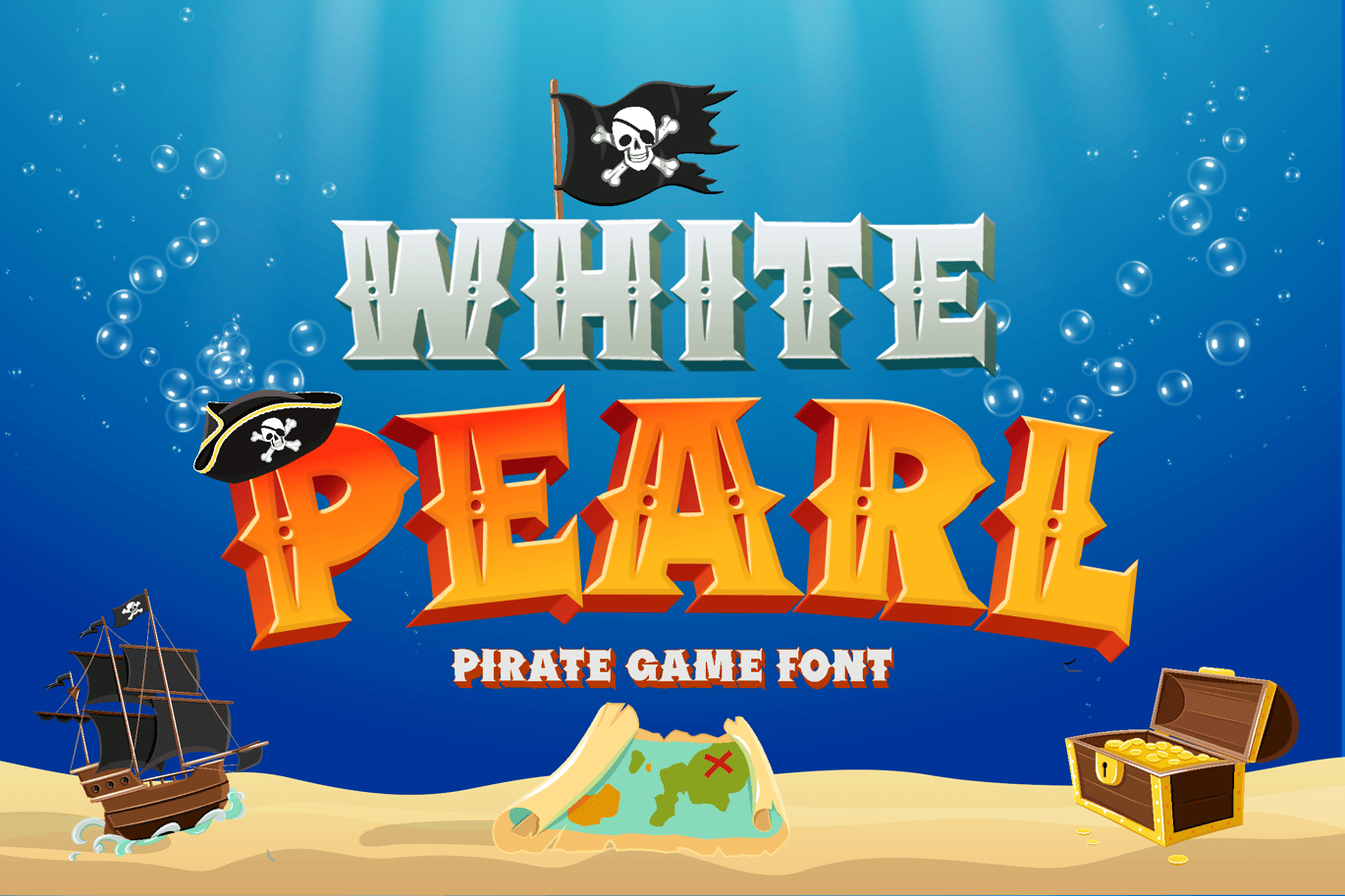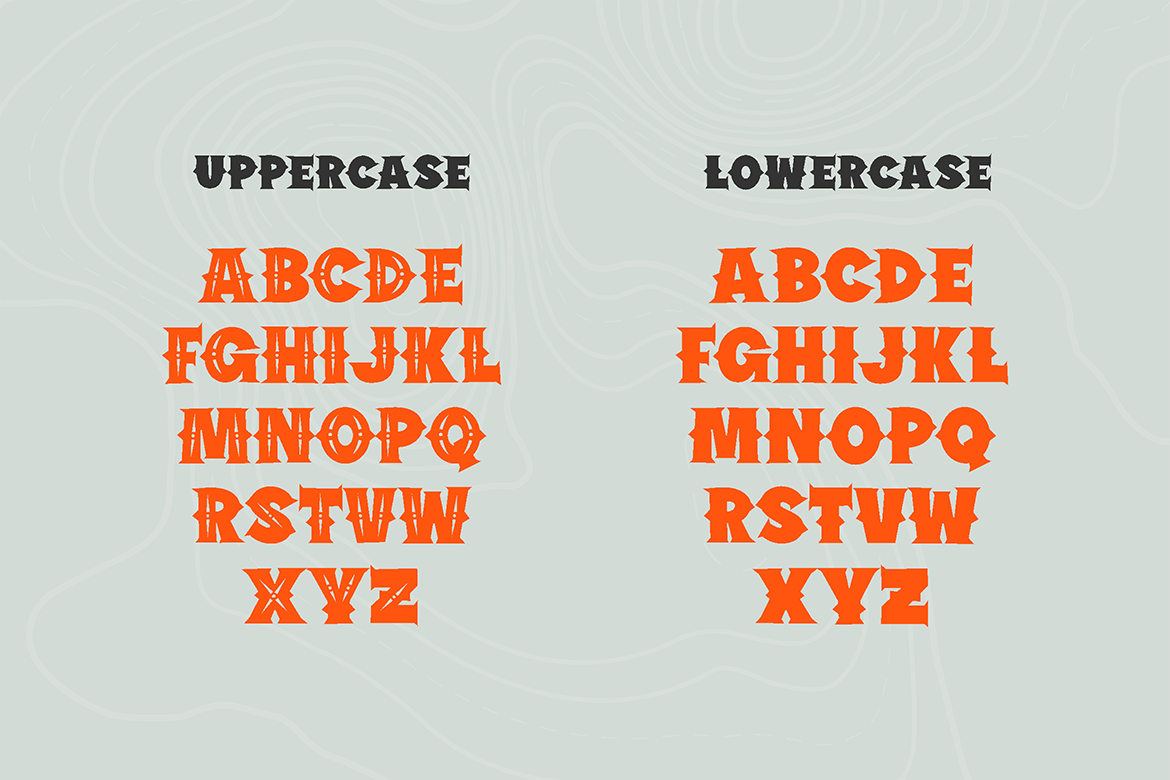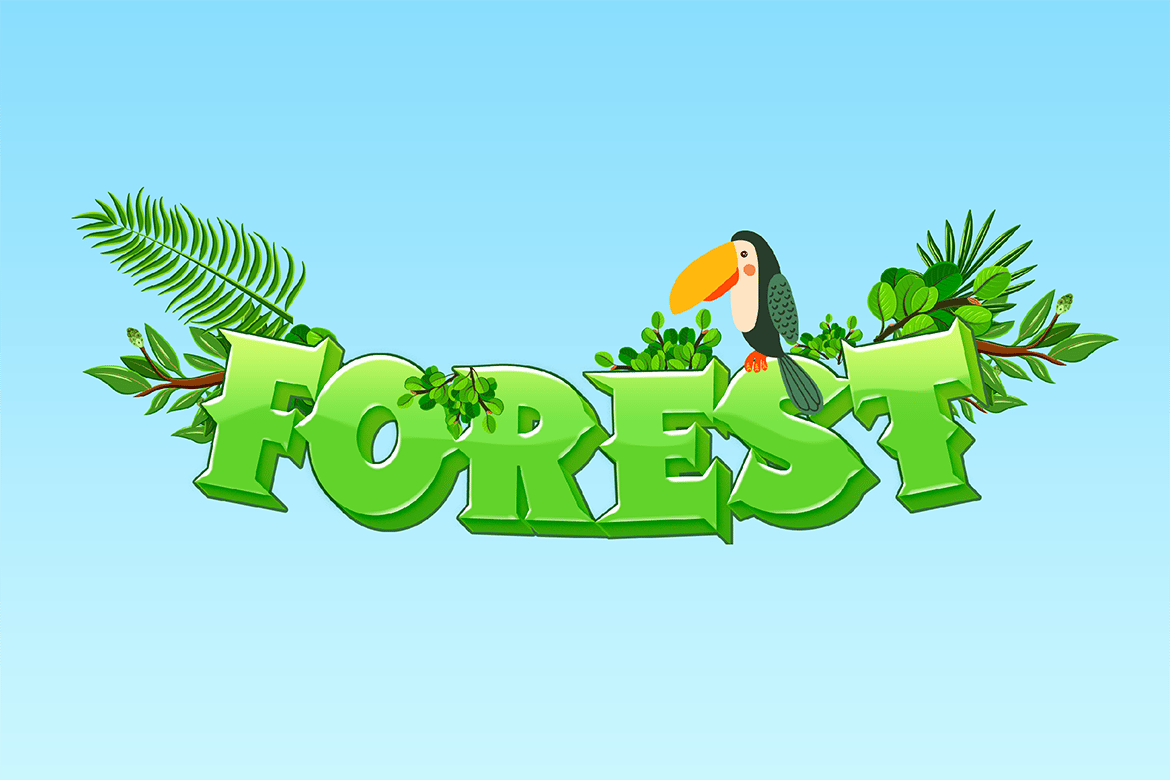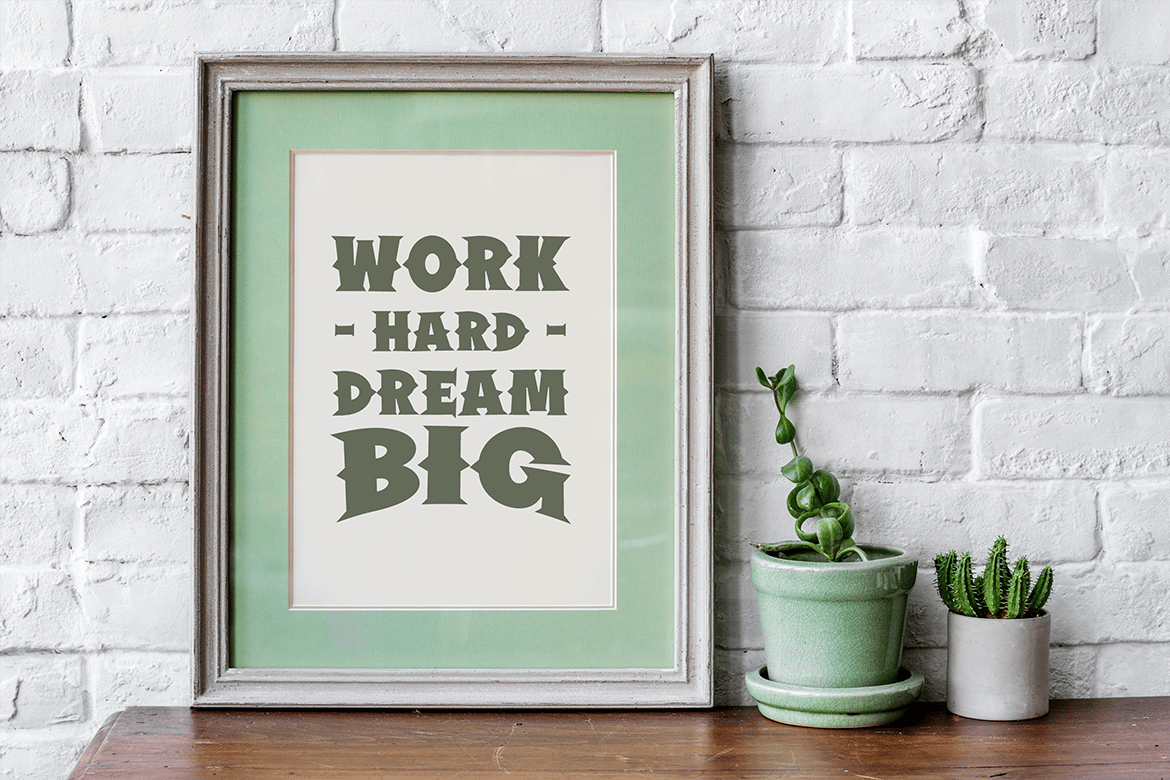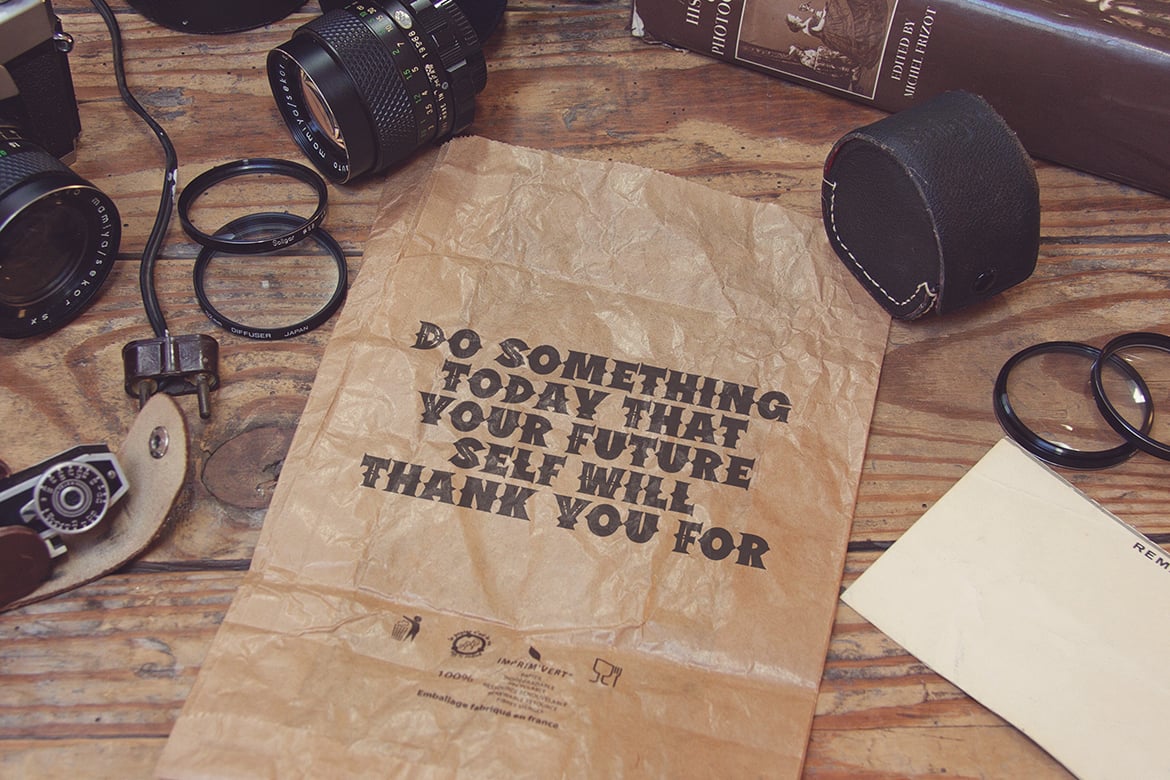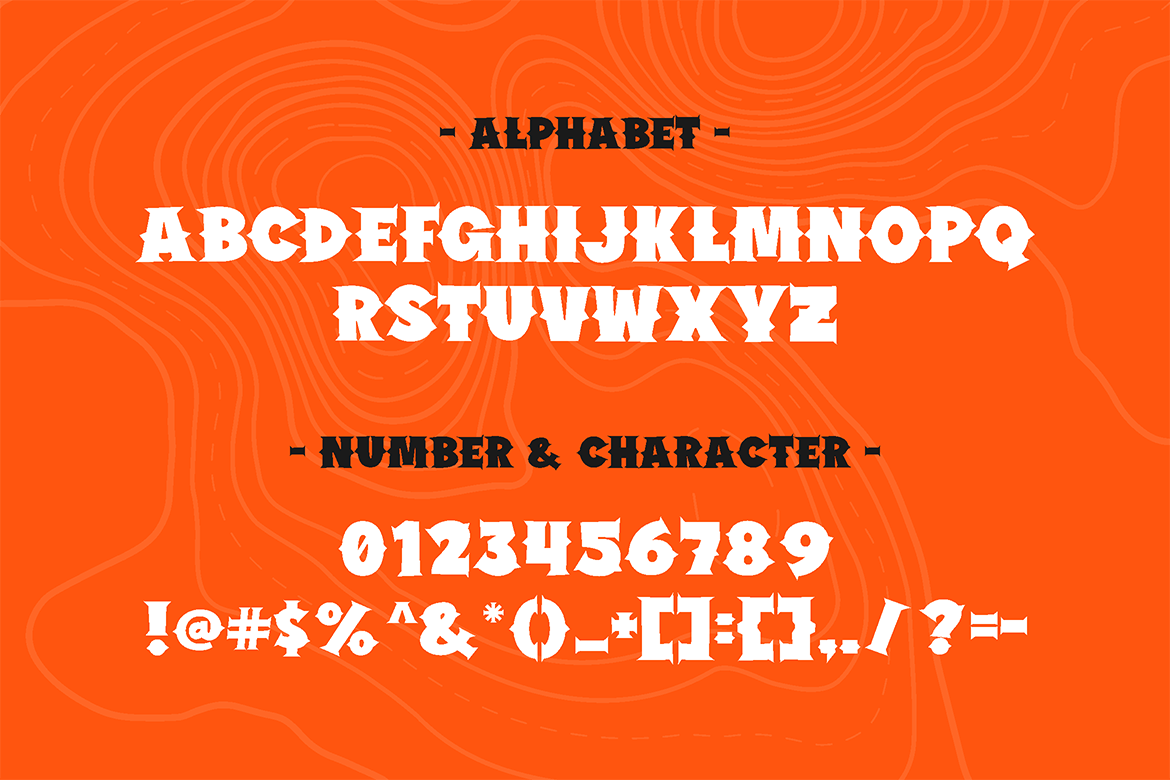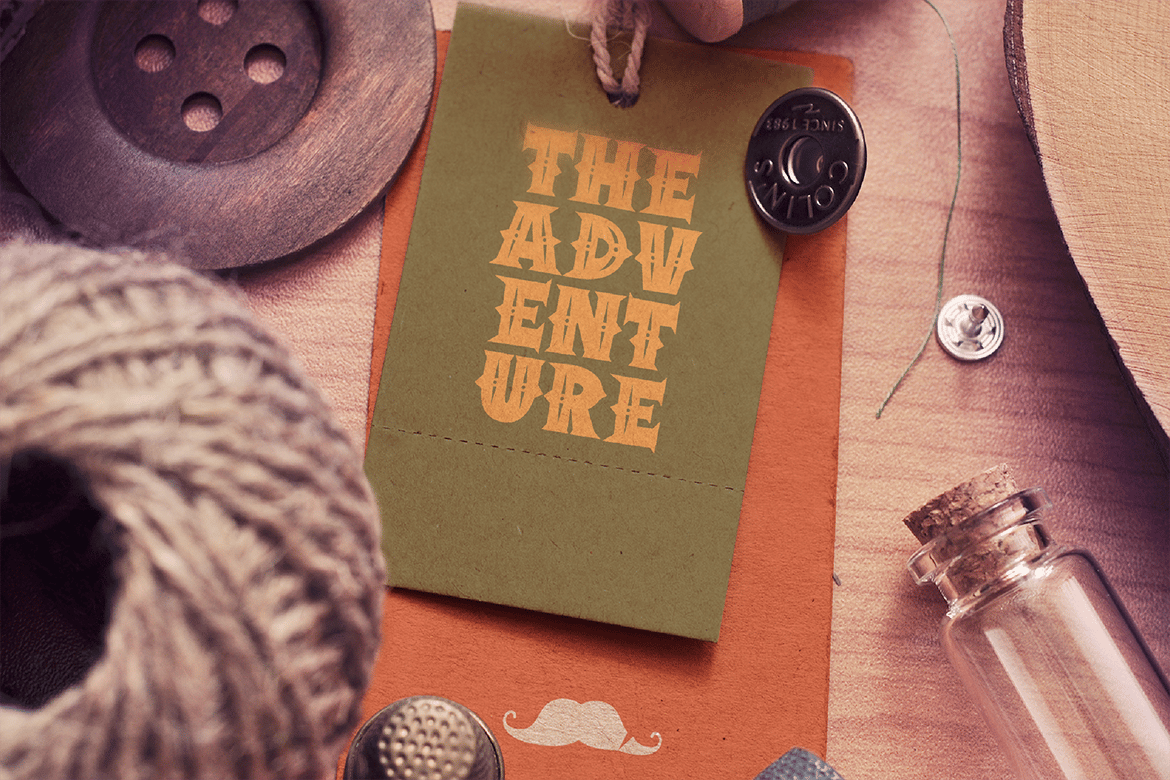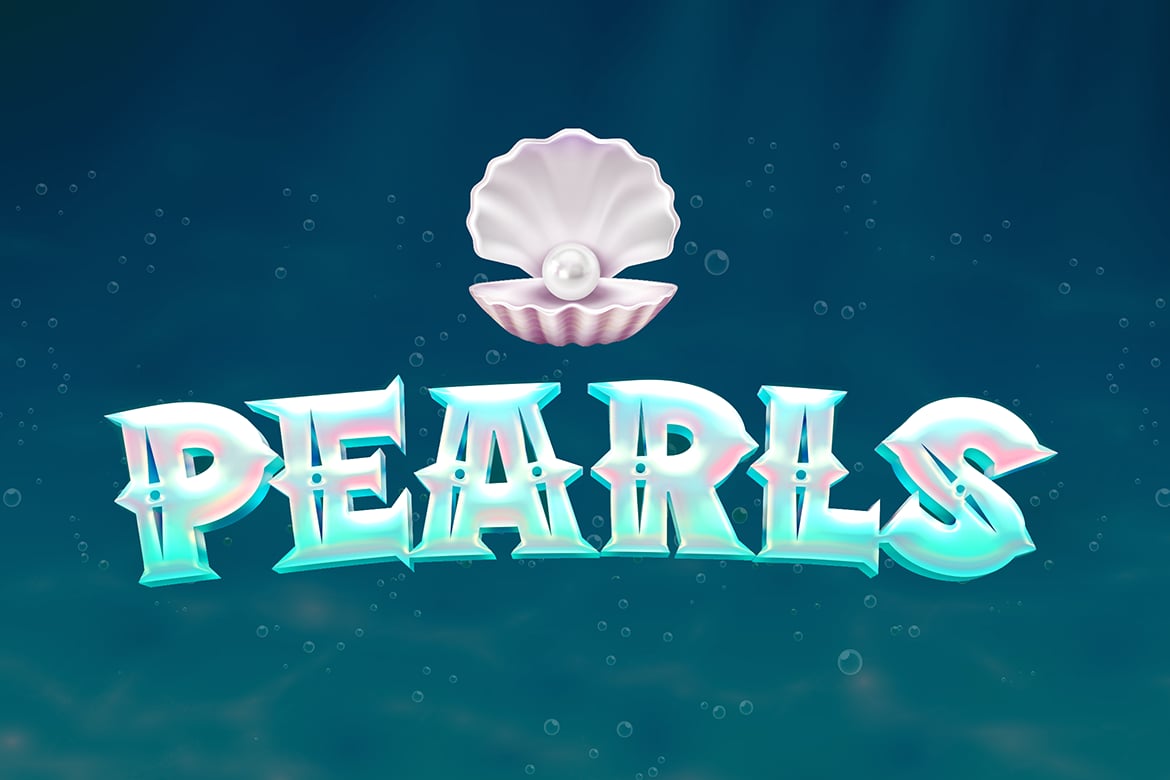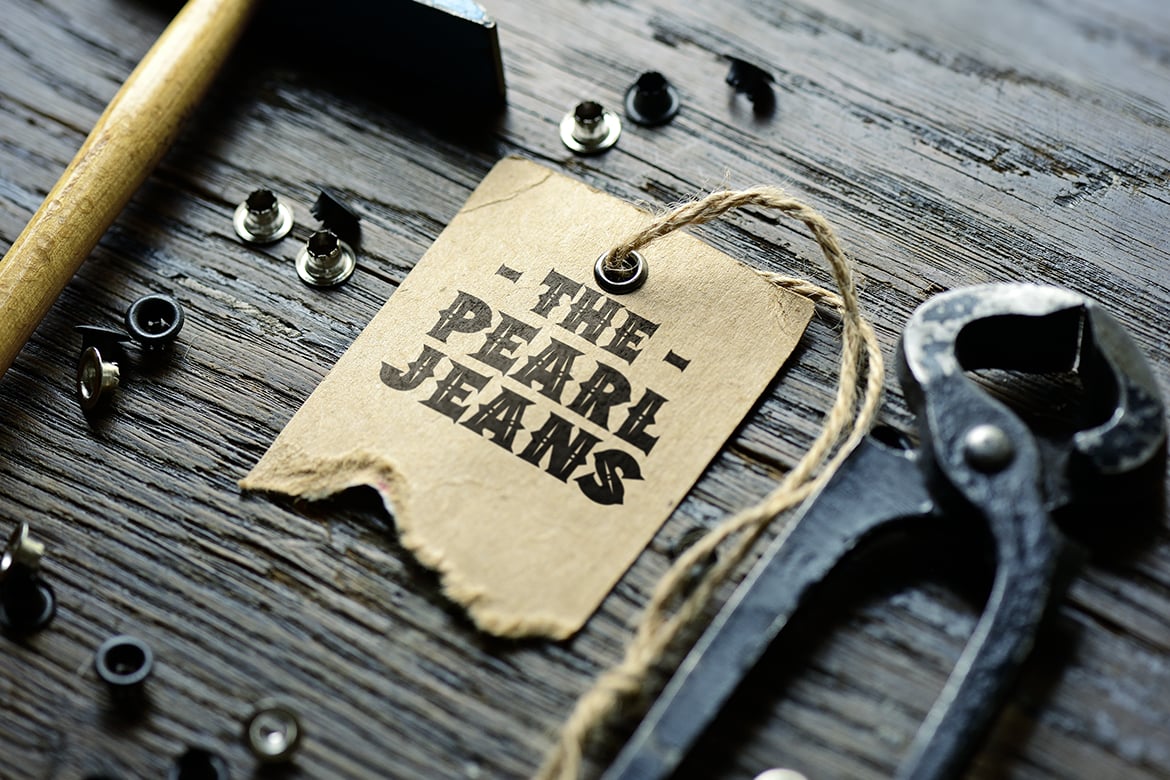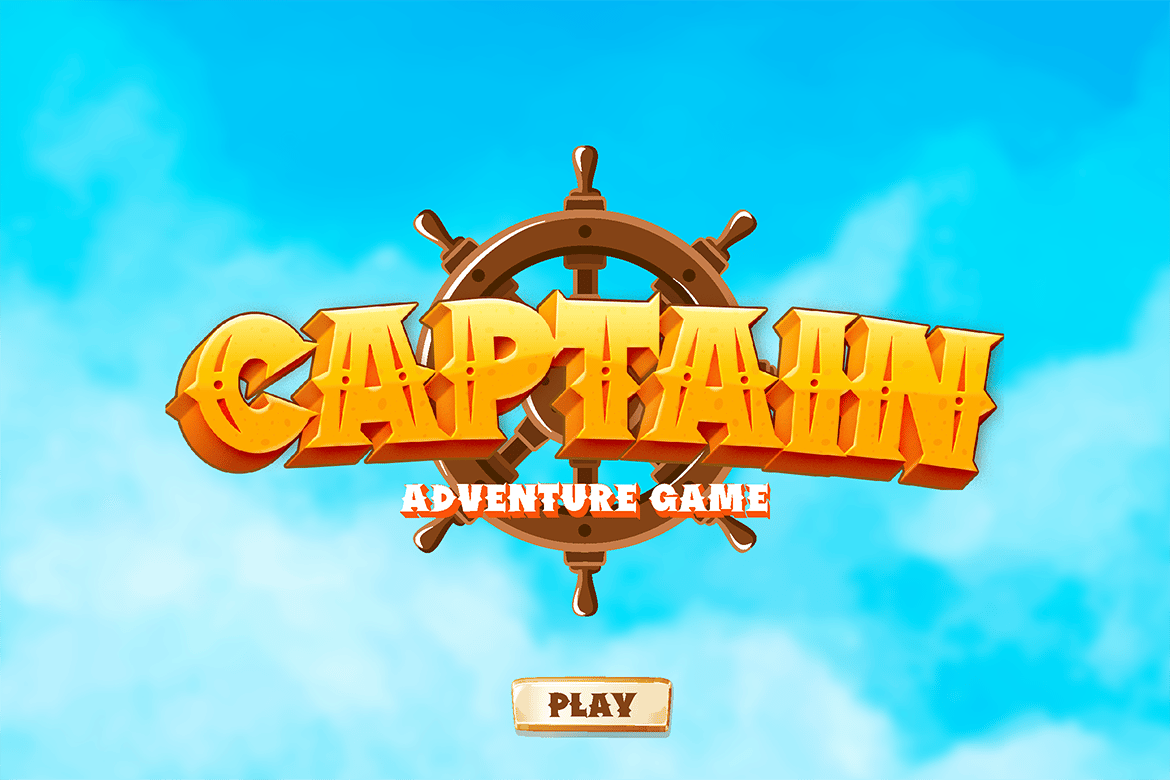
White Pearl – Gaming font
White Pearl – Pirate gaming font
Taking the pirate spirit to the gaming platform. The bold sharp shape emphasize the fun vibe its bring.
The uppercase have a retro element inside, while the lowercase keeping it simple.
Both having the same attitude, conquer that ship !
Suit perfectly for Online Games, poster, cartoon movie title, fast food menu, magazine, youtube covers, youtube thumbnails, social media page covers, adventure resort, play ground signage, and so on…